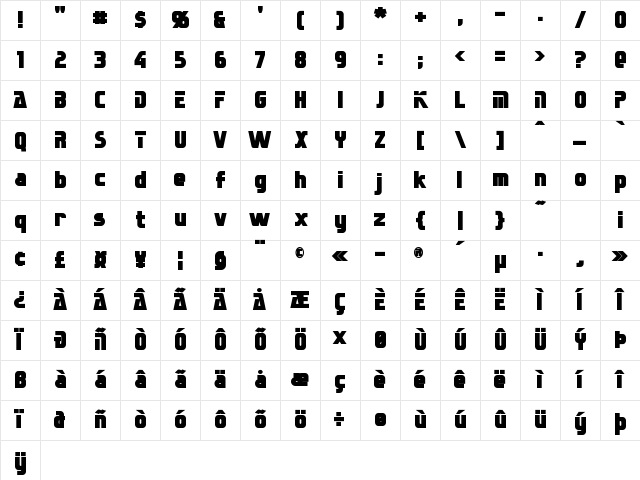
Sternbach Bold Free Font
Sternbach Bold
Foundry: Neale Davidson
Designer: Neale Davidson
Design Context for Sternbach
Sternbach is a composed and adaptable typeface that performs quietly and consistently across a wide range of design contexts. Its bold stroke weight gives it real presence on the page.